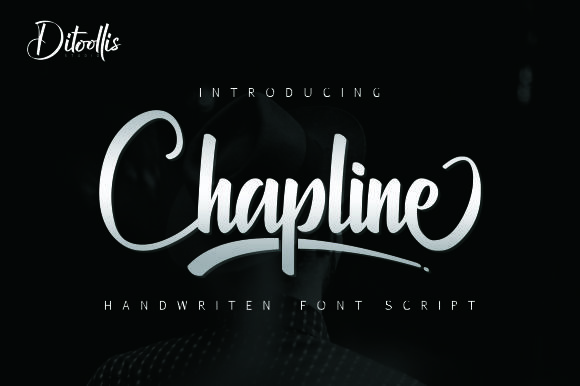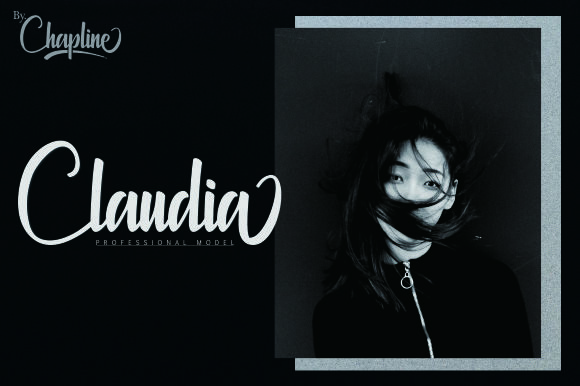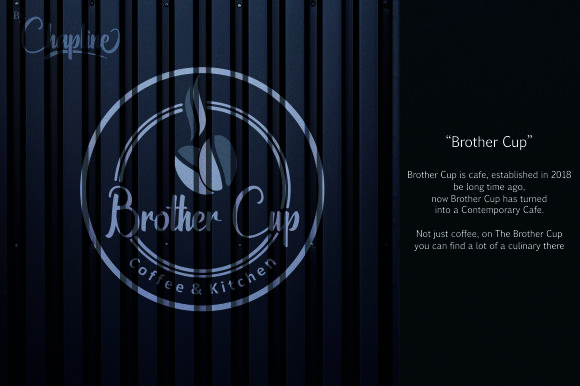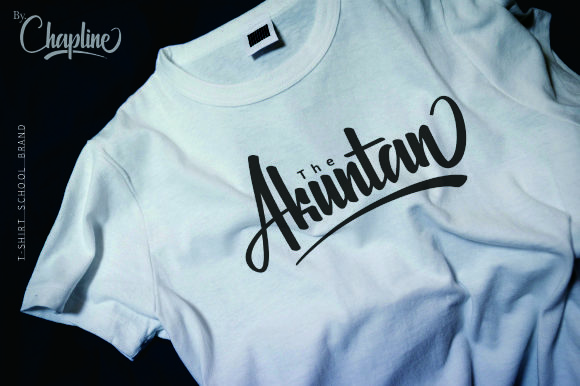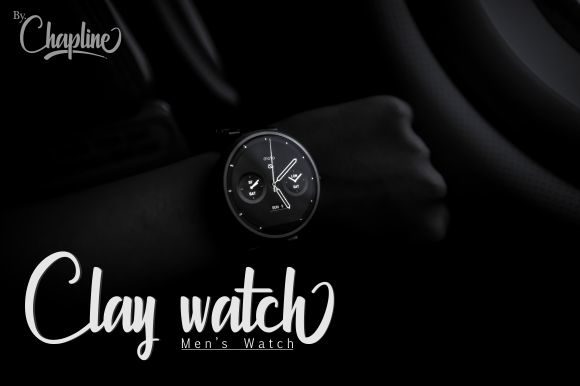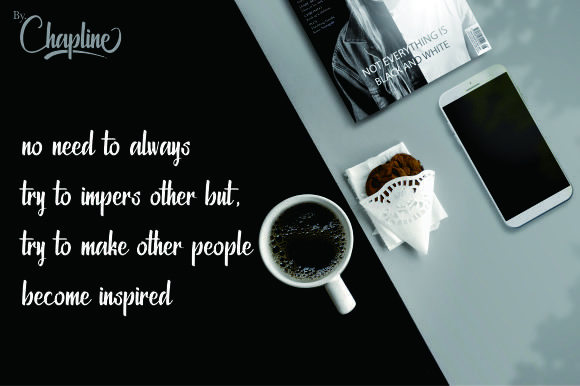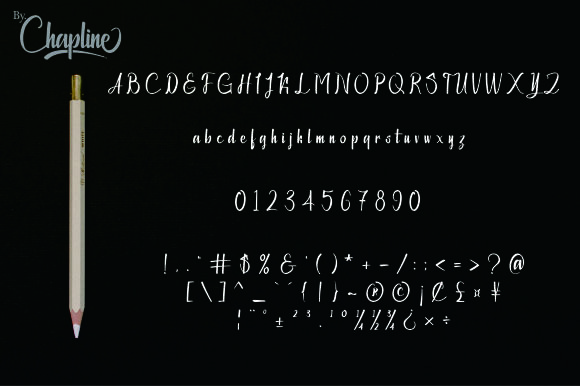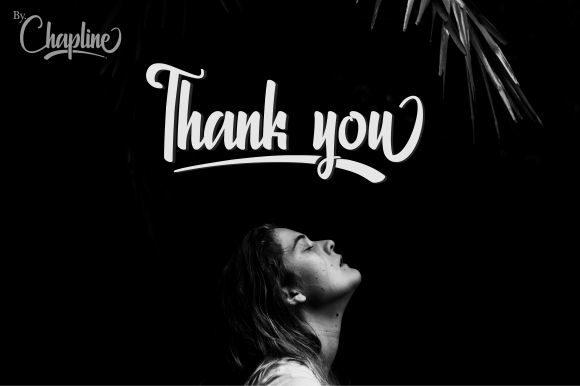
Chapline Font
About Chapline Font
The Chapline is a cool and modern font. It has a striking, yet elegant look which can be used for invitations, logos, business cards, covers, and much more!